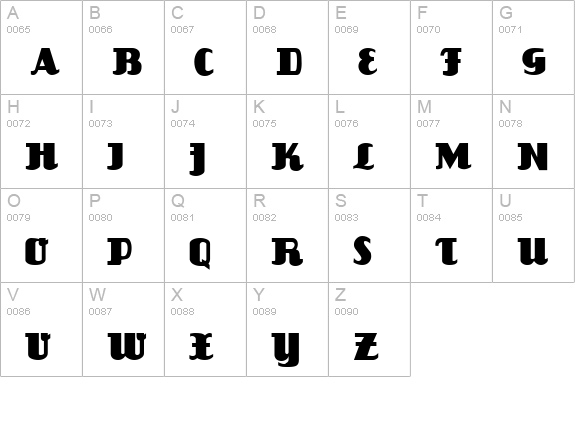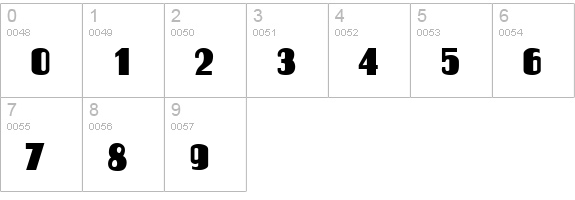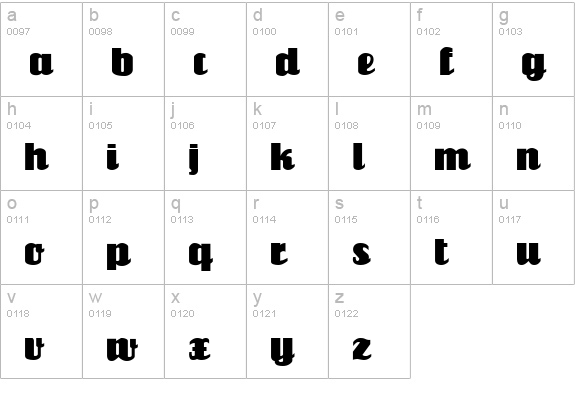
Fayette Font Details
Fayette font is a versatile and elegant typeface that exudes sophistication and charm. With its sleek lines and classic design, Fayette is the perfect choice for a wide range of design projects, from branding to editorial layouts. This timeless font brings a touch of refinement to any project, making it suitable for both modern and traditional aesthetics. One of the best things about Fayette font is that it is available for free download at FontsMarket.com. This means that you can easily access this high-quality typeface without any cost, making it a valuable addition to your font collection. Whether you are a professional designer or a hobbyist looking to elevate your projects, Fayette font offers the perfect blend of style and accessibility. Download Fayette font today and bring a touch of elegance to your designs.